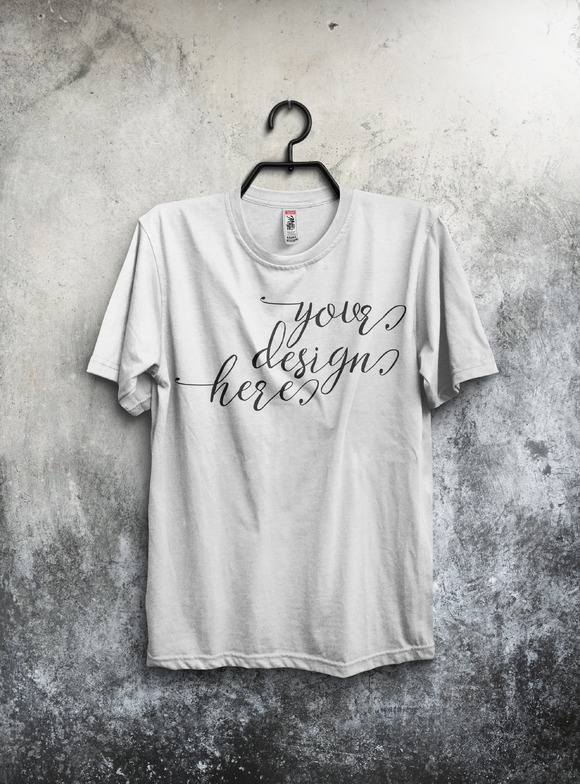
Laluna Script Font
LalunaScript is a new varieties of handlettered script font, allowing you to completely make-each word look stylish! With smooth style and petite, elegant with a long thin connections that make it look luxurious and original.
This fonts is ideal for branding and decorate your any project. This fonts are perfect for wedding invitation or your blog. Also with their help, you can create a logo or beautiful frame for your home. Or just use for your small business, book covers, stationery, marketing, magazines and more.